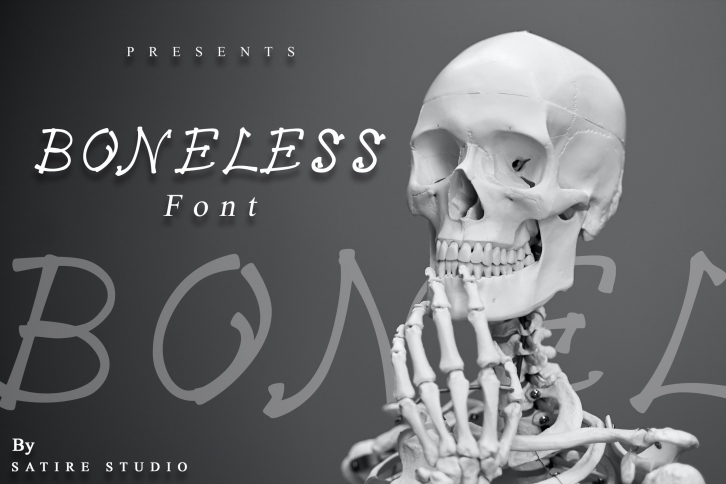
Boneless is a clean and adaptable handwritten font. Whatever the topic, this font will be a wonderful asset to your font library, as it has the potential to enhance any creation.